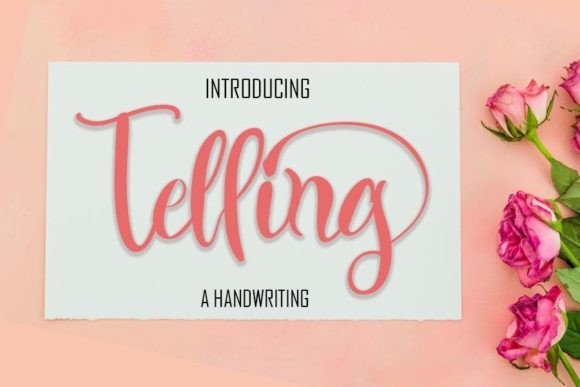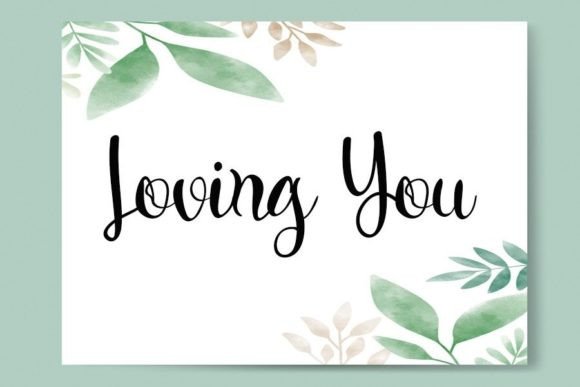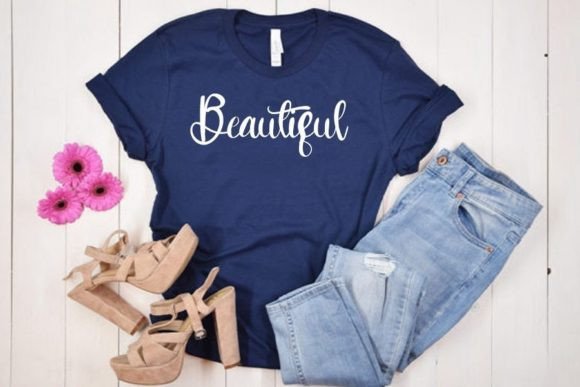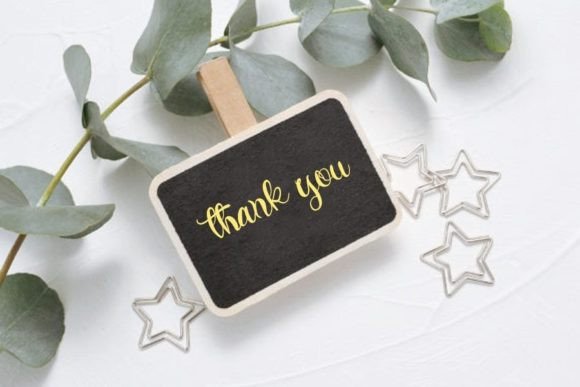
Telling Font
About Telling Font
**Telling Font: Where Cuteness Meets Playful Quirkiness**
Introducing “Telling,” a cute and friendly handwritten font that brings a playful and slightly quirky vibe to your creative endeavors. With its charming and approachable aesthetic, this font is designed to be the perfect fit for all your logos, branding, posters, and crafty DIY projects. Let “Telling” add a delightful touch to your designs and infuse them with a sense of whimsy.
At the heart of “Telling” is a cuteness that adds a touch of charm to every letter. The font’s handwritten characters exude a friendly playfulness, making it an ideal choice for designs that aim to capture attention with a bit of quirky character. “Telling” is not just a typeface; it’s a design element that transforms your text into an engaging and approachable visual experience.
The playful quirkiness of “Telling” opens the door to a world of creative possibilities. Picture it enhancing your brand’s logo, adding a friendly touch to posters or social media graphics, or becoming the go-to font for DIY projects that demand a mix of charm and creativity. This font becomes a versatile companion that aligns seamlessly with the essence of your creative vision.
The adaptability of “Telling” makes it suitable for a variety of applications across different mediums. Whether you’re crafting digital designs or diving into hands-on DIY projects, this font becomes the dynamic brushstroke that elevates your work and adds an element of fun.
In conclusion, “Telling” is not just a font; it’s an invitation to embrace cuteness and playful quirkiness. Embrace it, and watch as your designs come alive with a friendly touch. With “Telling,” every letter becomes a brushstroke in the canvas of creativity, leaving an indelible mark of whimsy on your design journey.